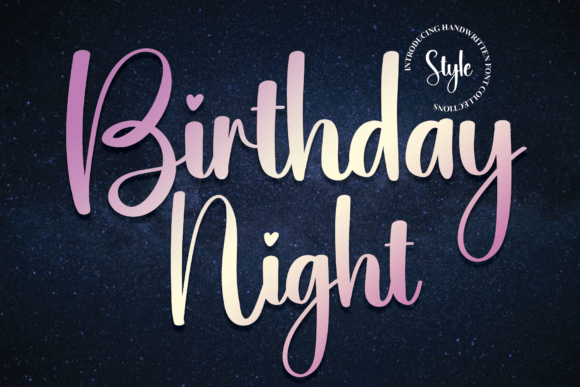
The Birth of a New Design Era
Have you ever sat in front of your computer, staring at a blank screen, and suddenly, a burst of creativity strikes? The cursor blinks, and the words start flowing. It’s a moment every designer knows and loves. And that’s exactly what happened when the team at Birthday Night crafted their latest style letters – a masterpiece that’s set to revolutionize the design world.
Birthday Night Font is more than just a font; it’s a way to express yourself, to add a touch of personality to your work. Whether you’re a seasoned designer or a creative enthusiast, this font is perfect for any project that requires a dash of handwriting charm. And, as a designer, you know how valuable it is to have a versatile font that can elevate your designs to the next level.
Get ready to experience the magic of Birthday Night Font and discover why it’s a game-changer for designers. In this article, we’ll dive into the world of this incredible font and explore its many uses and benefits.
- Unique Characteristics: Hand-drawn, cursive style with a modern twist, perfect for creative projects and celebrations
- Font Style: Casual, playful, and elegant, suitable for birthday invitations, party decorations, and other celebratory materials
Birthday Night Font Review
Overall, I think the Birthday Night Font is a sweet addition to any celebratory design project. ✨ Its playful and vibrant vibe makes it perfect for creating fun and lively invitations, posters, or social media graphics.
- The font’s bold and cursive style is perfect for drawing attention and creating a sense of excitement.
- The various ligatures and swashes add a touch of elegance and sophistication, making it suitable for more upscale events.
- The font’s versatility allows it to be used in a wide range of design contexts, from casual to formal.
However, there are a few limitations that might impact its usability. ⚠️ Some of the characters may not render correctly at smaller font sizes, which can be a problem for projects where readability is crucial.
Additionally, the font’s bold style can sometimes feel overwhelming, making it difficult to balance with other design elements.
Overall, I would recommend the Birthday Night Font for projects where a playful and celebratory vibe is necessary. While it may have some limitations, its unique style and versatility make it a great addition to any designer’s toolkit.
The Birthday Night Font is ideal for creating festive and celebratory designs, such as:
- Birthday invitations and cards
- Party decorations and banners
- Special occasion graphics and templates